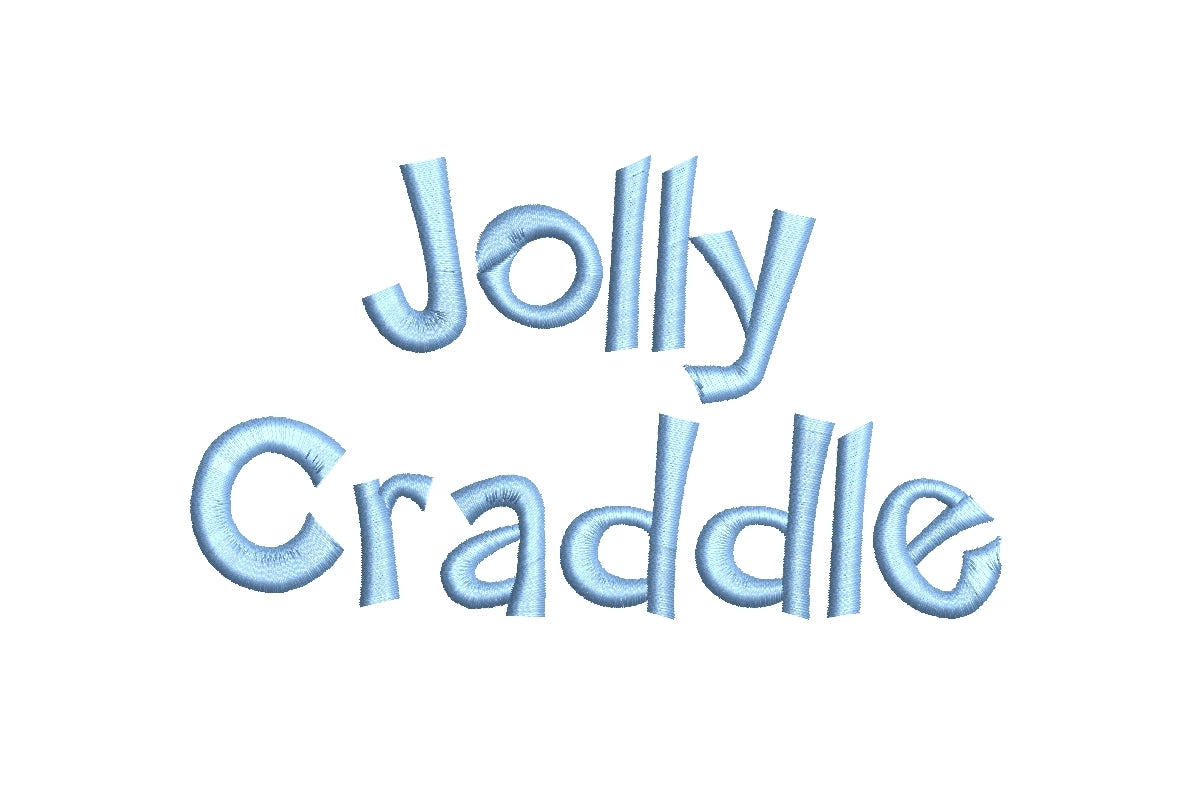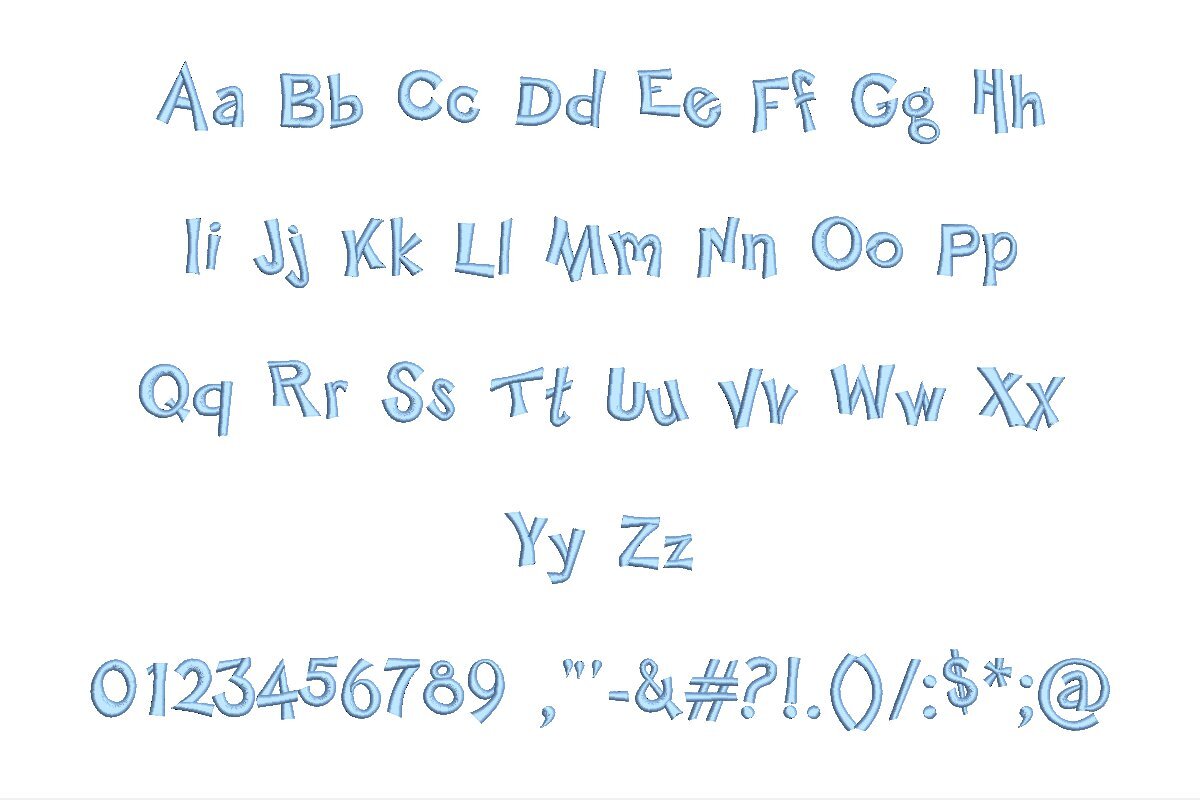
Introducing the Jolly Cradle ESA Font, your gateway to whimsical embroidery magic. Designed for seamless compatibility with Wilcom Studio e4.5.6 and Hatch 3 versions and beyond, this font adds a touch of playful charm to your creative journey. Whether you're a seasoned embroiderer or a beginner, Jolly Cradle ESA simplifies the digitizing and stitching process with effortless integration. Crafted with precision, this font brings joy and whimsy to your designs, elevating your embroidery projects to new heights. Order the Jolly Cradle ESA Font now and embark on a cheerful journey filled with creativity and remarkable results.